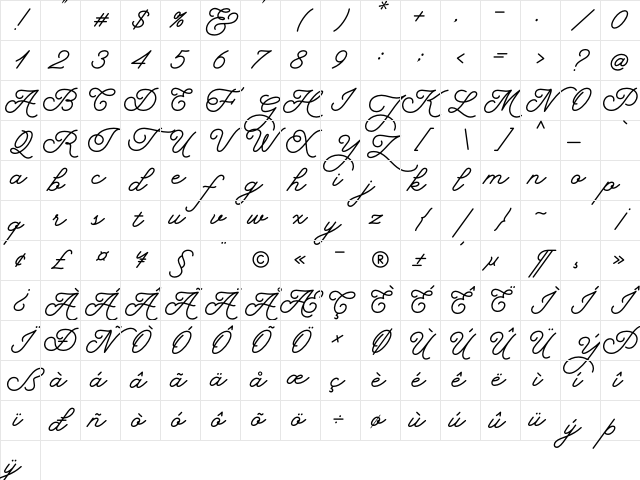
Complete Hearty Morning - Personal Use Regular glyph index. Displaying only characters natively supported by Hearty Morning - Personal Use Regular font.
Hearty Morning - Personal Use is a composed and adaptable typeface that performs quietly and consistently across a wide range of design contexts.
Who designed the Hearty Morning - Personal Use Regular font?